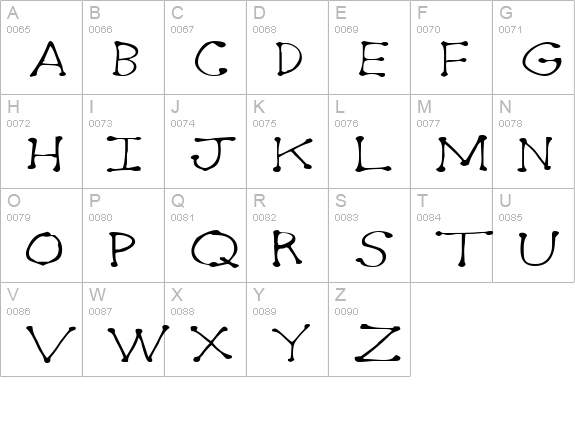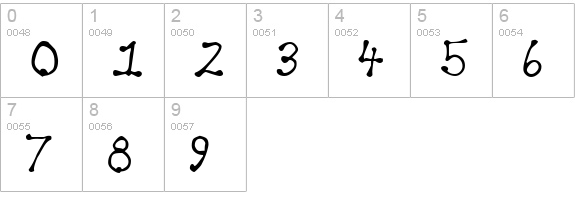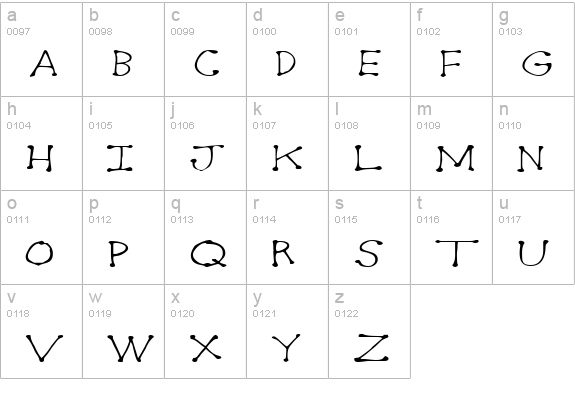
Dot2Dot Font Details
Dot2Dot font is a stylish and modern typeface that is perfect for adding a fun and playful touch to your designs. The font features a unique dot-to-dot design that gives it a distinctive and eye-catching look. Whether you're creating posters, invitations, or social media graphics, Dot2Dot font will surely make your text stand out. What's even better is that Dot2Dot font is completely free to use! You can easily download this font for free at FontsMarket.com and start using it in your projects right away. With its clean lines and bold style, Dot2Dot font is sure to become a go-to choice for all your design needs. Get your hands on this amazing font today and let your creativity shine!